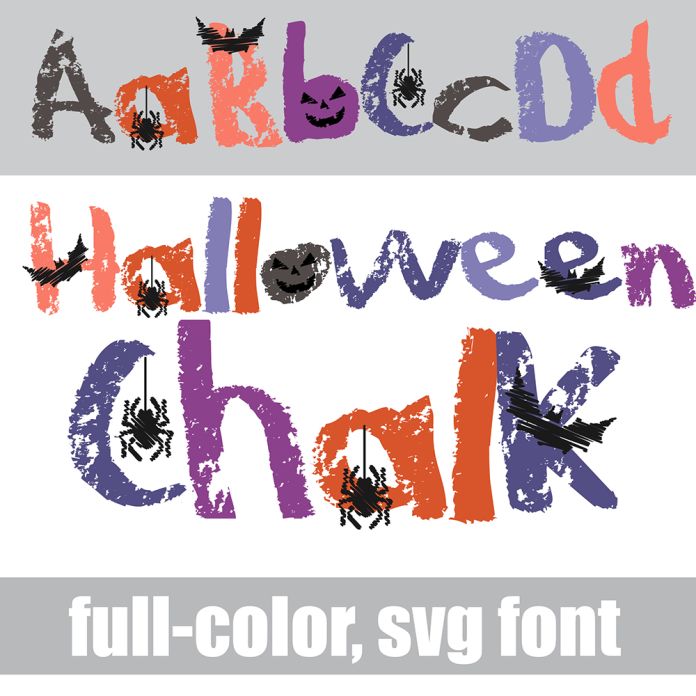
This full-color font features chalk lettering with scary pumpkin faces, spiders, rats, spiders and more. There is an alt version you can access through your system's character map that contains additional colors of all the letters. This font works best for titles, displays, posters and more. Please note color fonts will show as black in non compatible programs. This font type is compatible with Silhouette Studio.